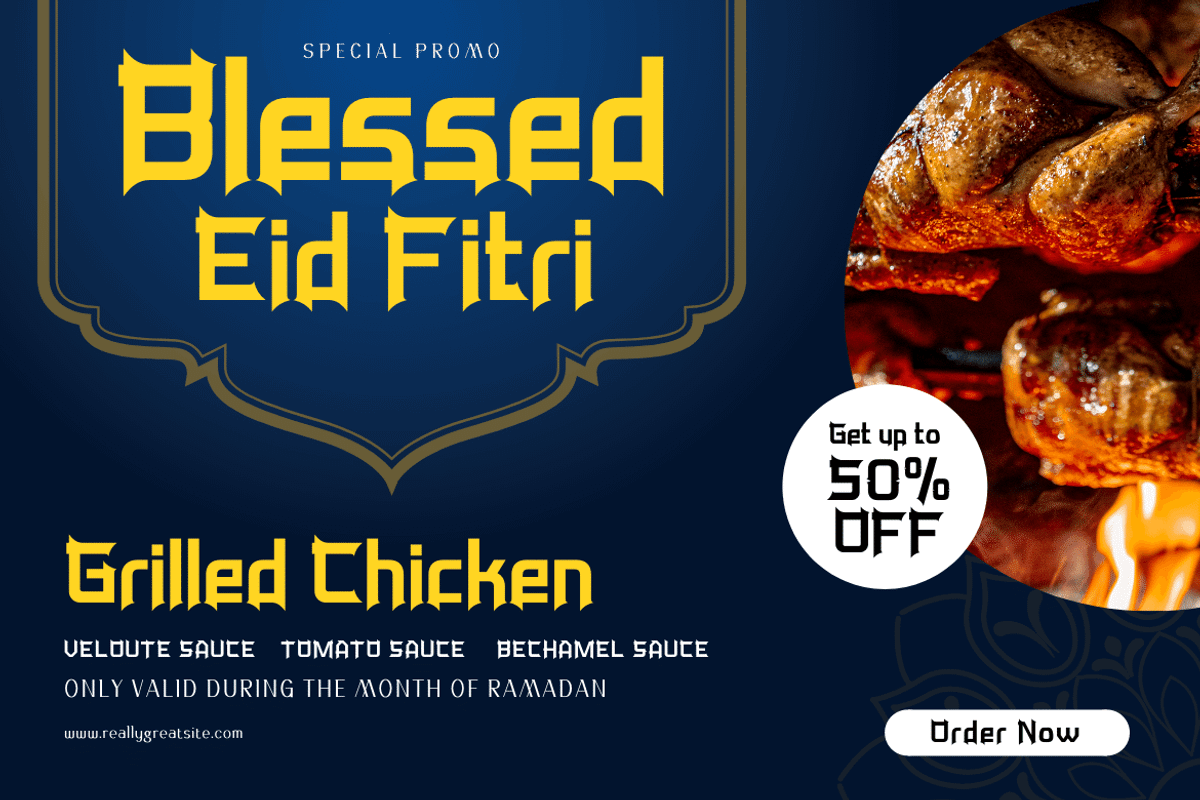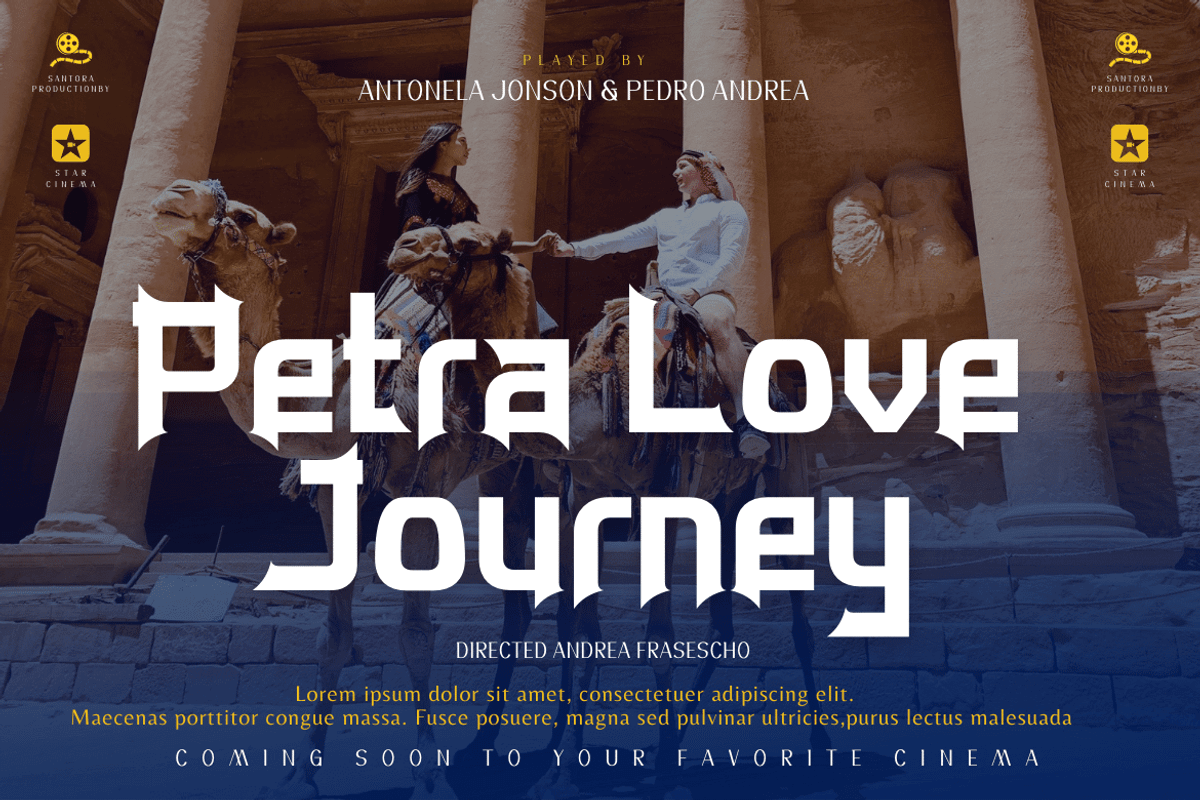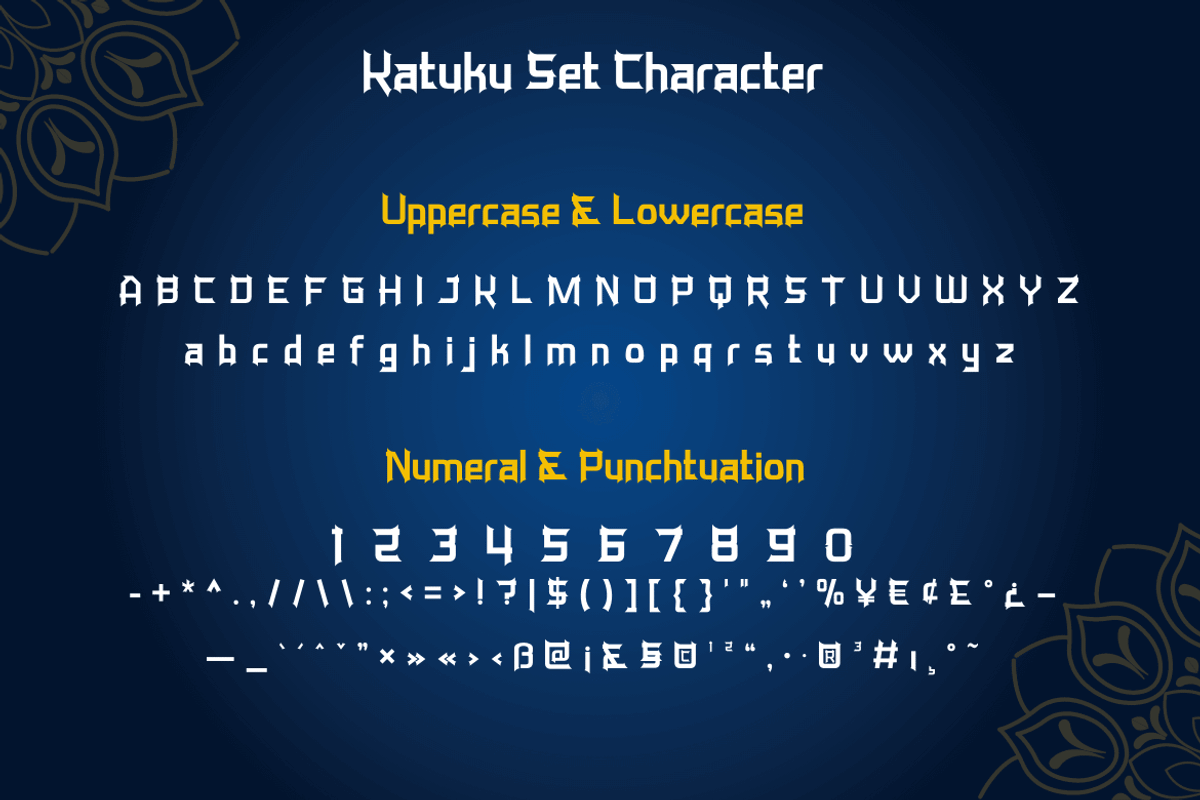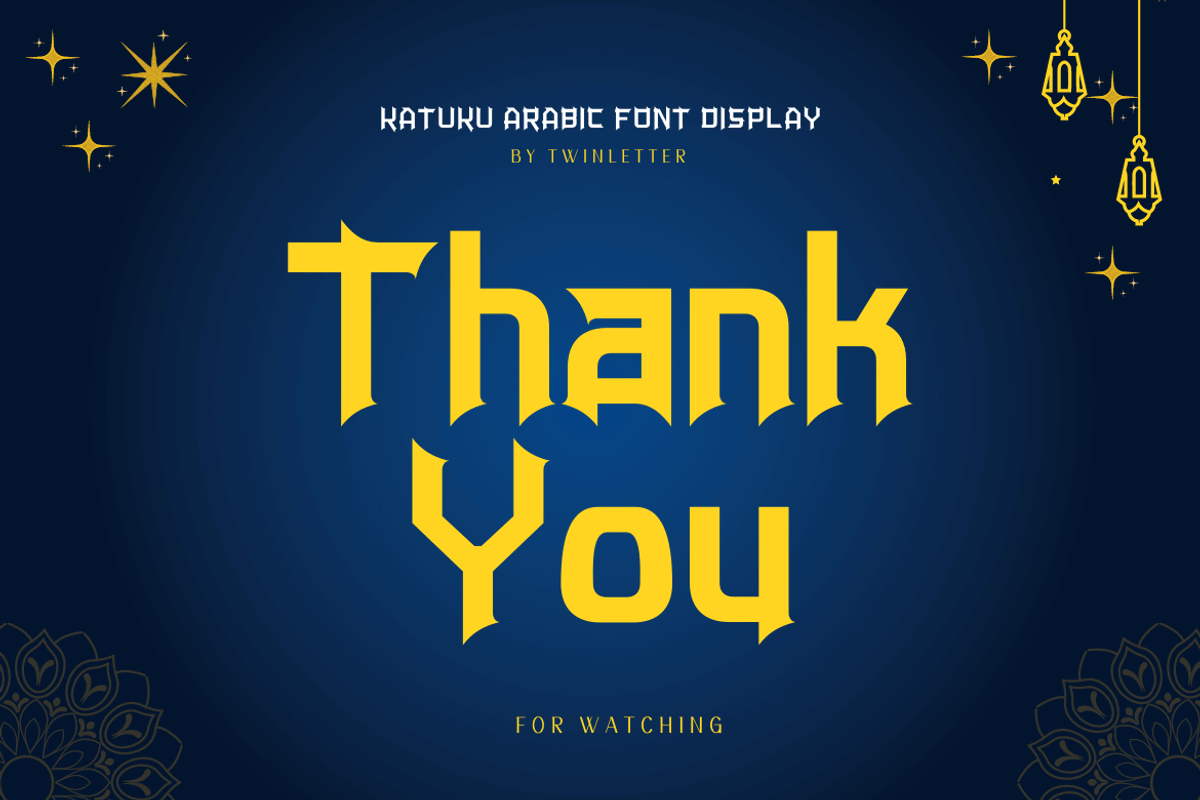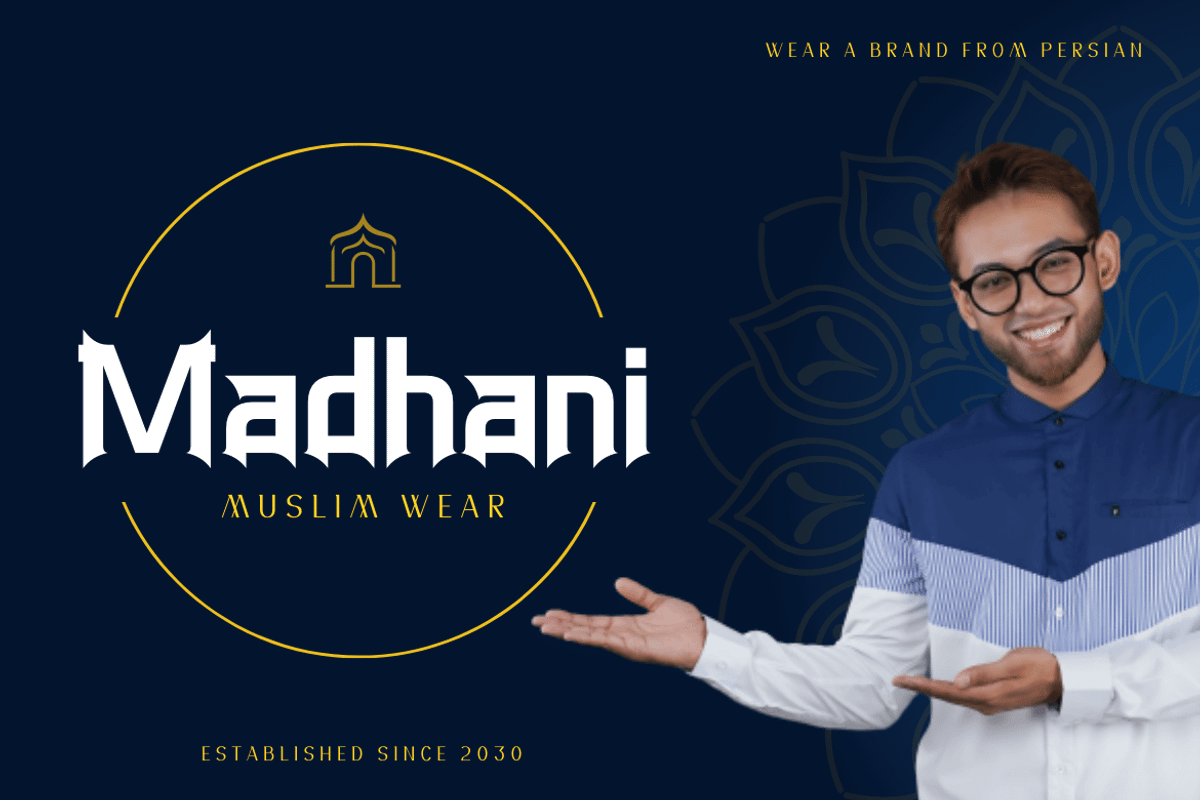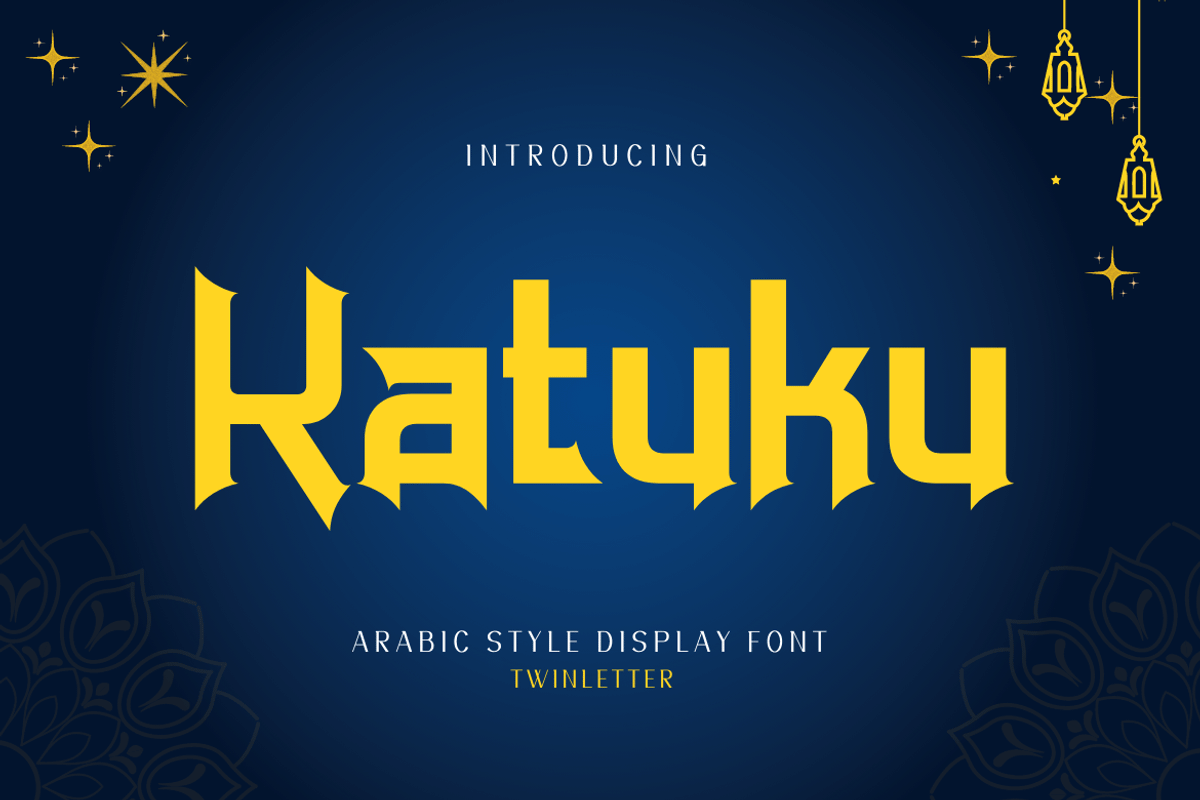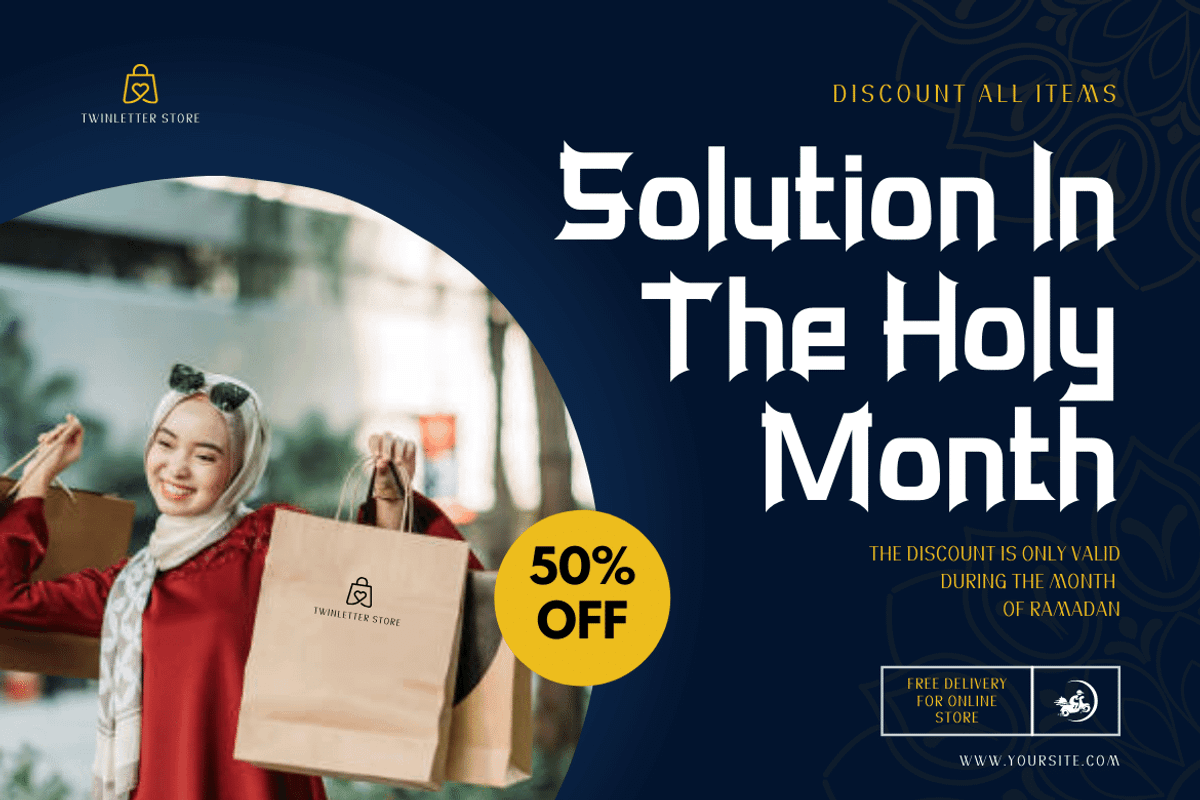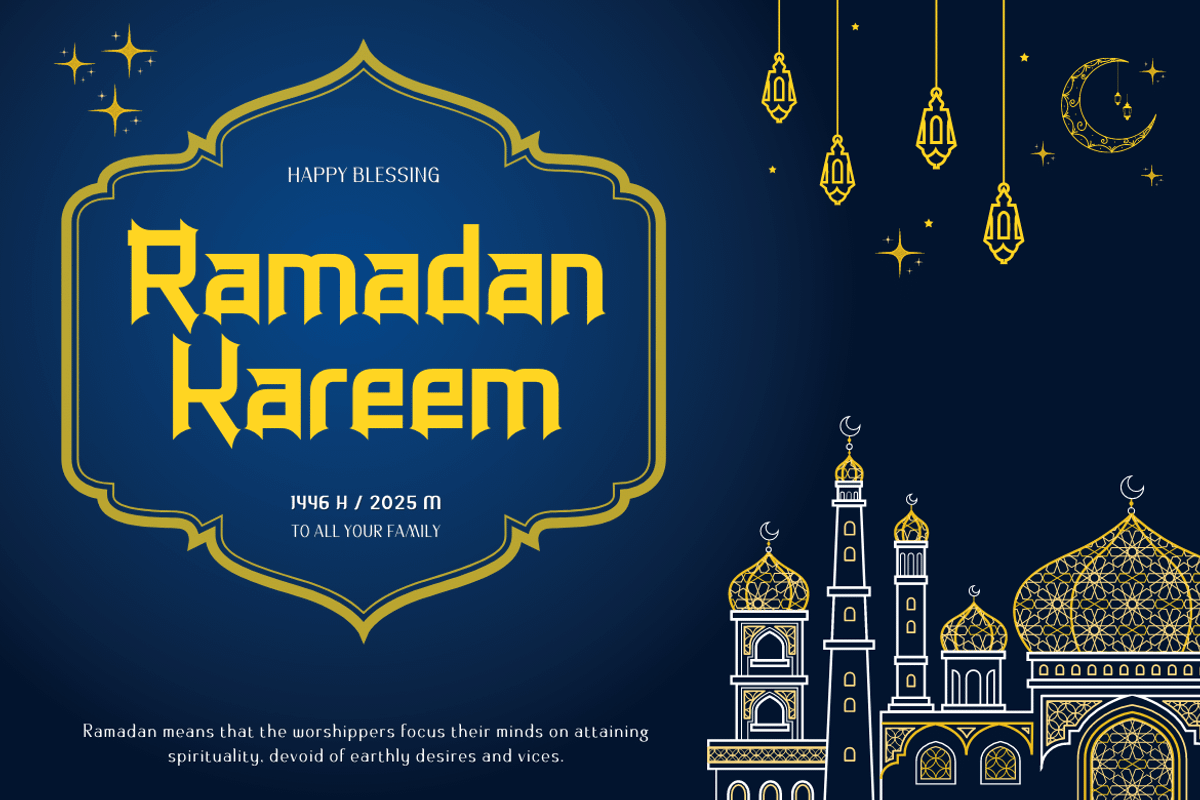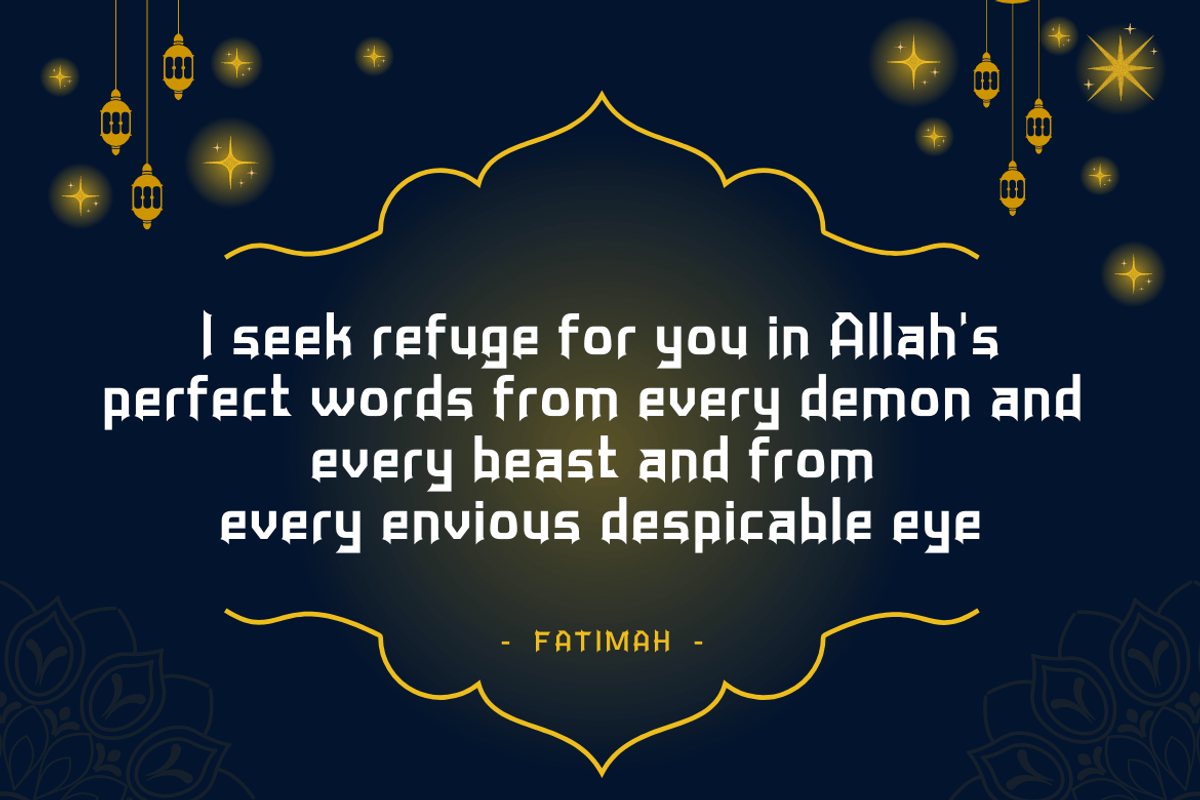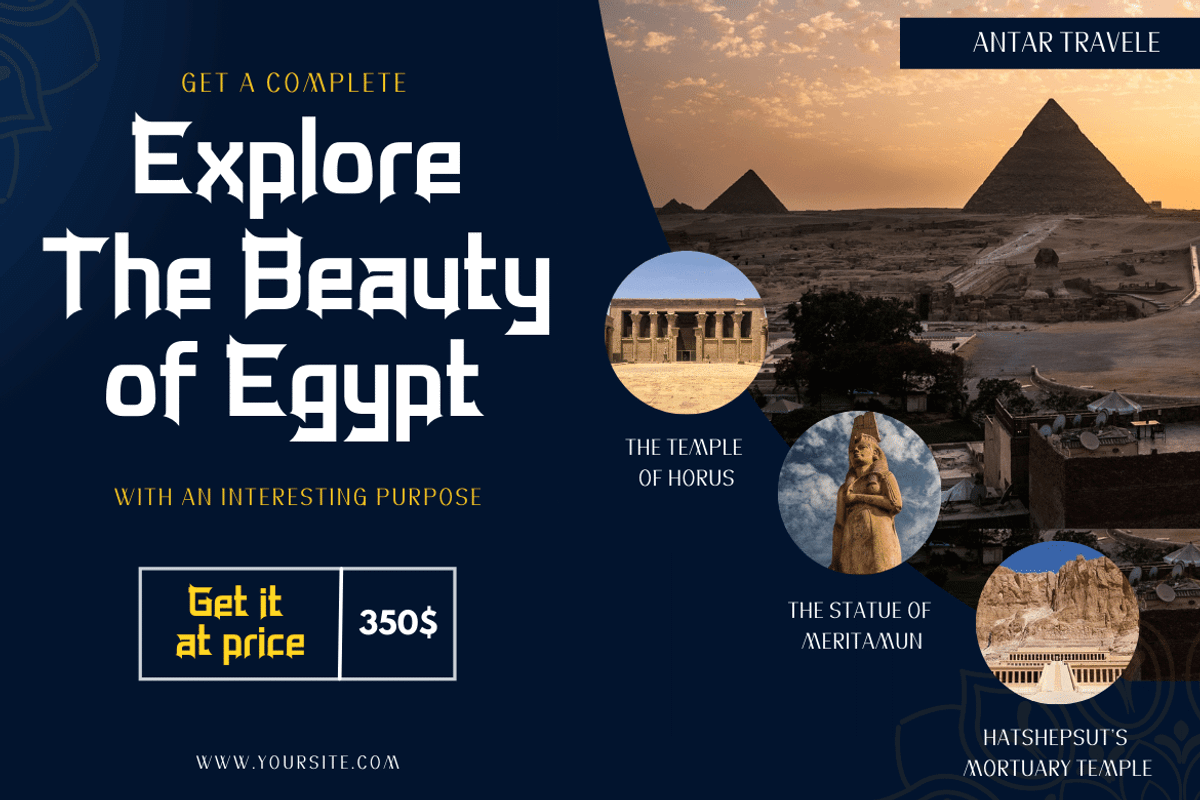
Katuku
Katuku is an Arabic Style Font based on the exquisite Arabic calligraphy style, which means that the writing style is highly decorative and highly variable. Arabic style fonts will give your designs a genuine Middle Eastern feel. Use this font in your super projects to grab everyone’s attention. Not only is it perfect for logos and headlines, but it adds an elegant Arabic touch to the design and will give you a real edge over your competitors’ designs.